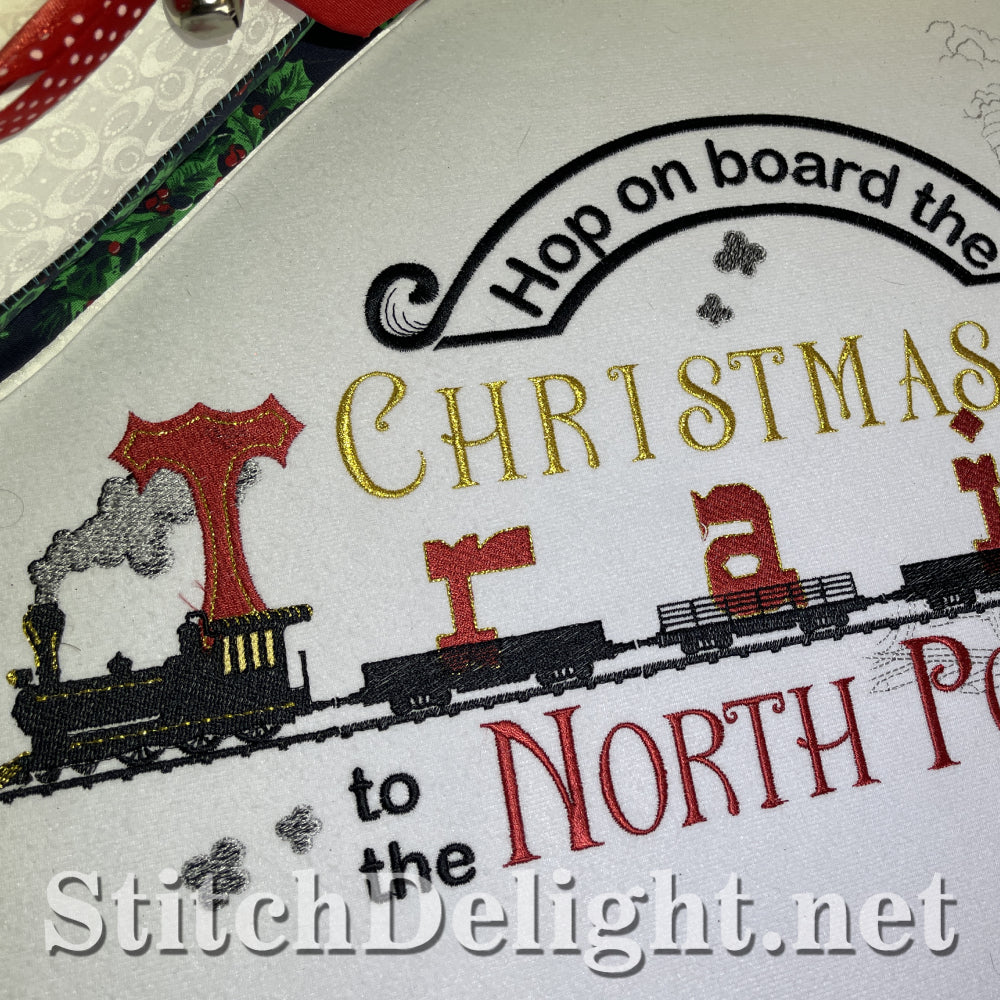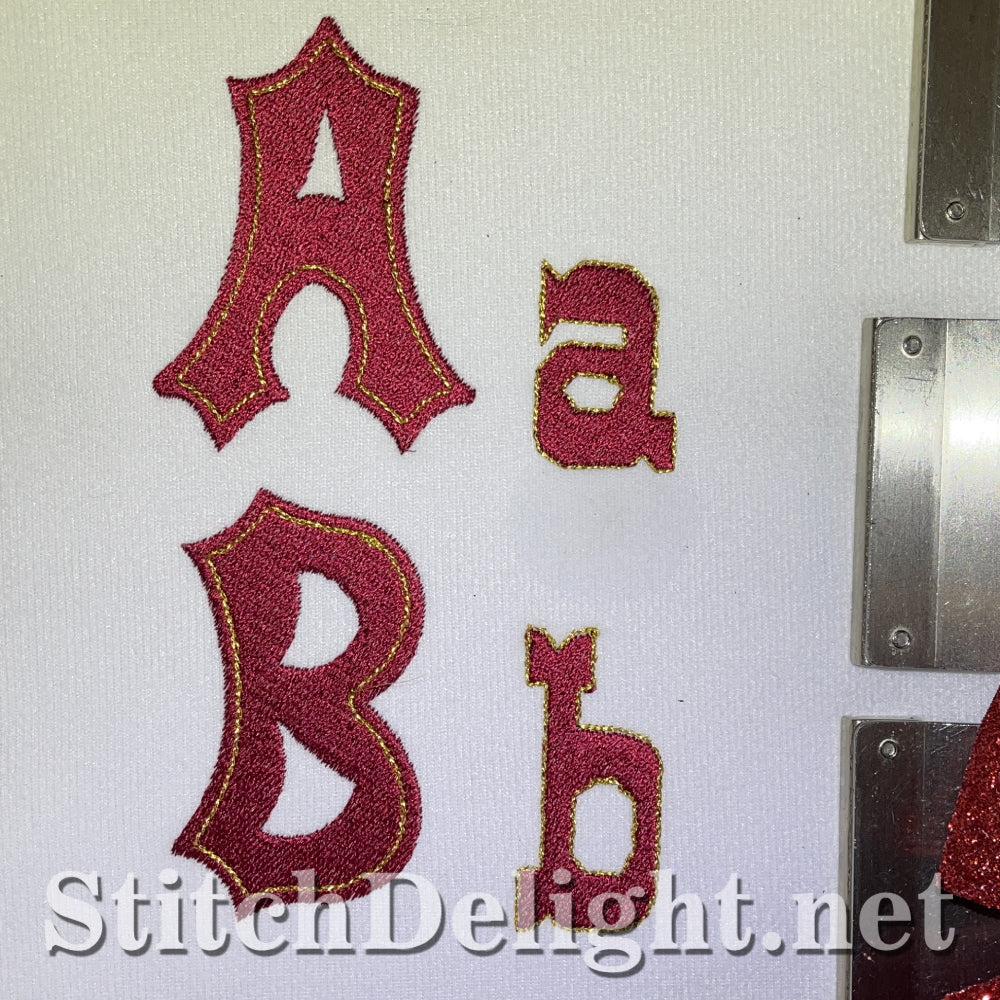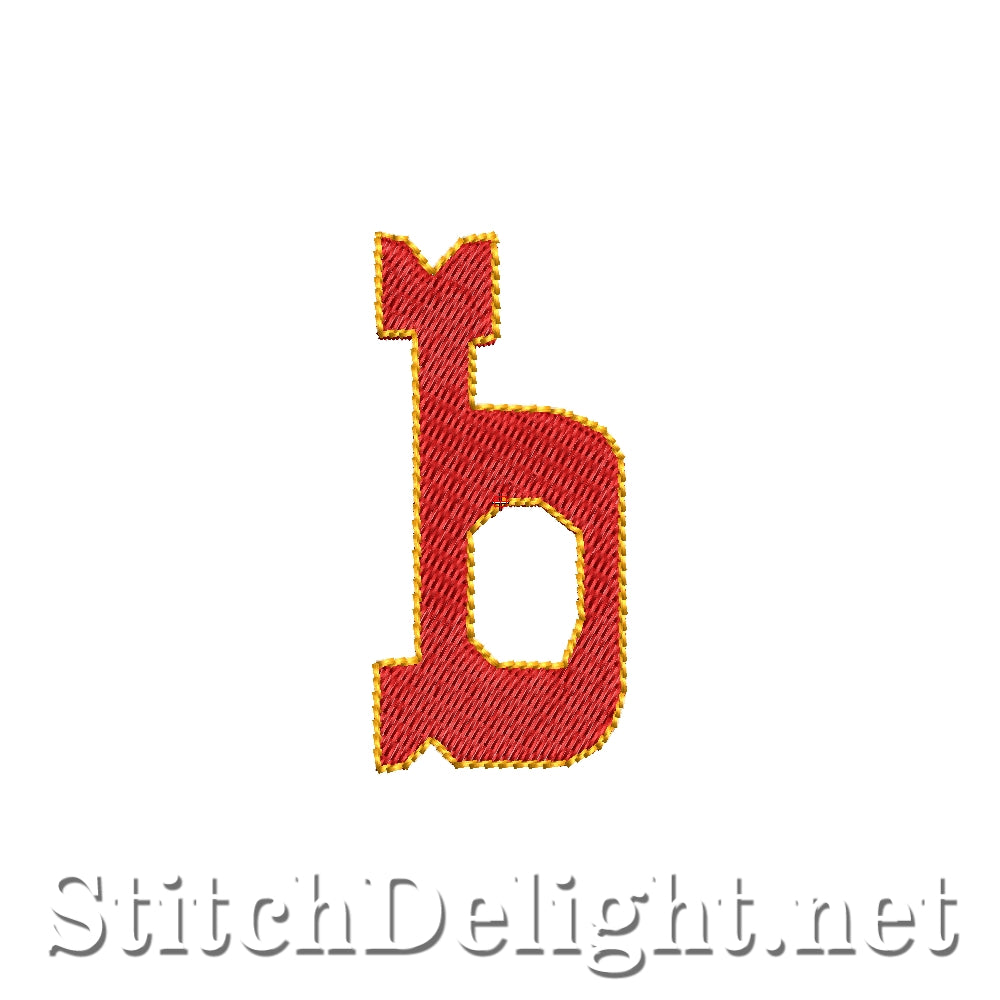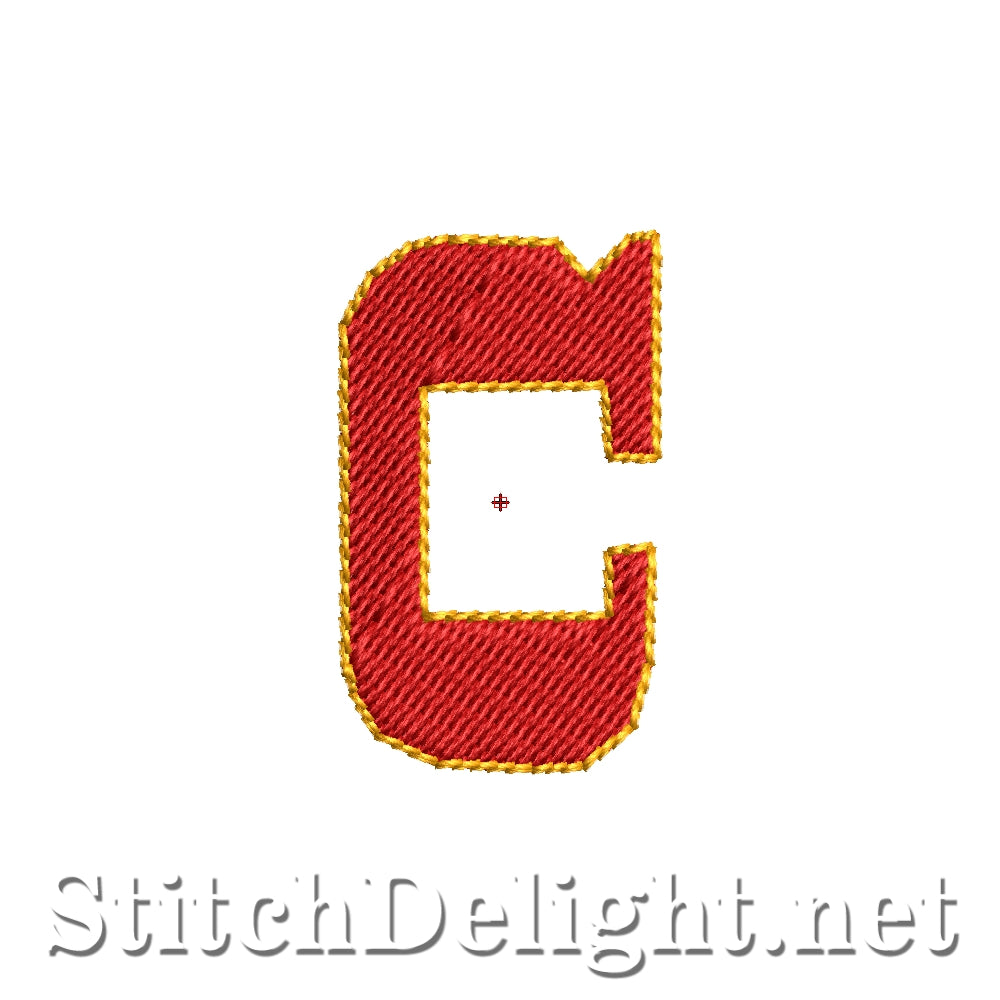
SDS3306 Christmas Font
Create festive projects this holiday season with this Christmas Font!
This font is perfect for any Christmas project you're planning this year!
Add a metallic thread for a festive shine or use contrasting colors to give it that little extra festive bling, the included BX format makes it easy to type, with support for numbers, uppercase, and lowercase characters.